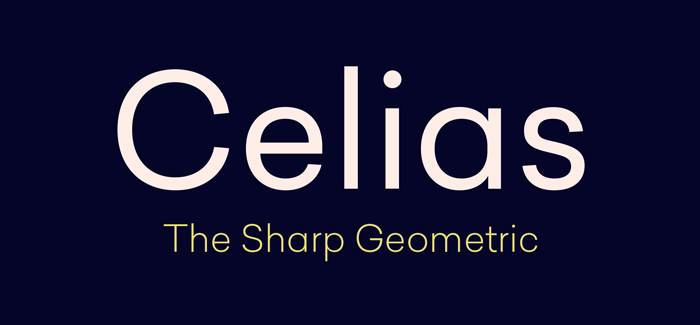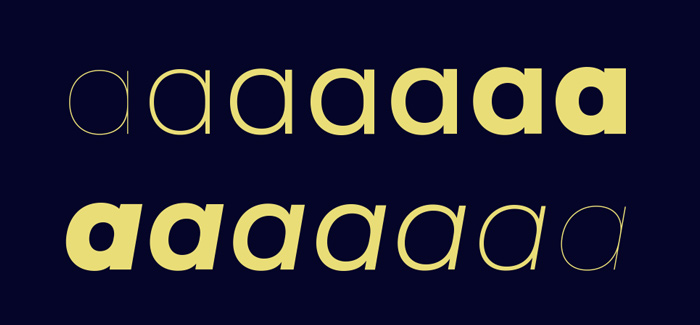
Celias font
Celias font by the Swiss type foundry Type Dynamic is a comprehensive geometric Sans Serif font family with sharp corners. It includes 14 fonts: 7 weights, from Hairline to Black, with their corresponding italics. Each font includes OpenType Features such as Stylistic Alternates, Proportional Figures, Tabular Figures, Numerator, Superscript, Denominators, Scientific Inferiors, Subscript, Ordinals, Ligatures and Fractions.
Celias font family is highly legible and useful both for headlines and texts.